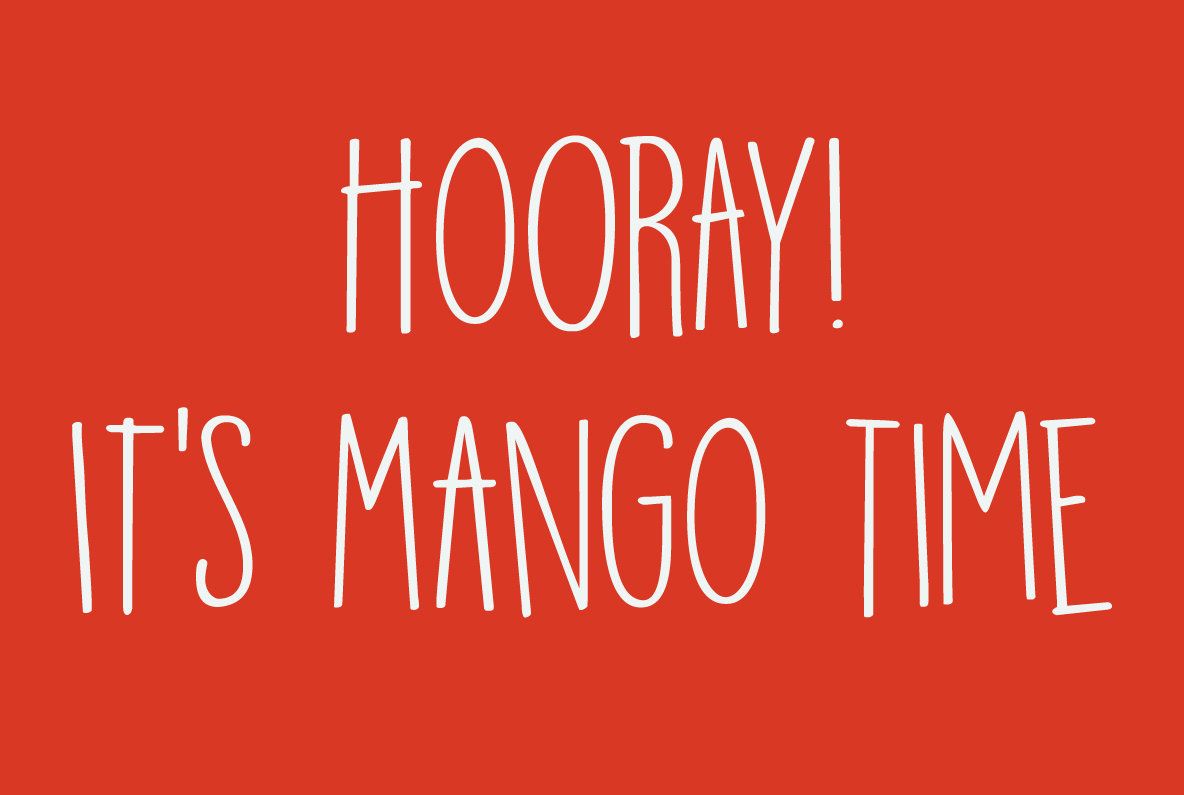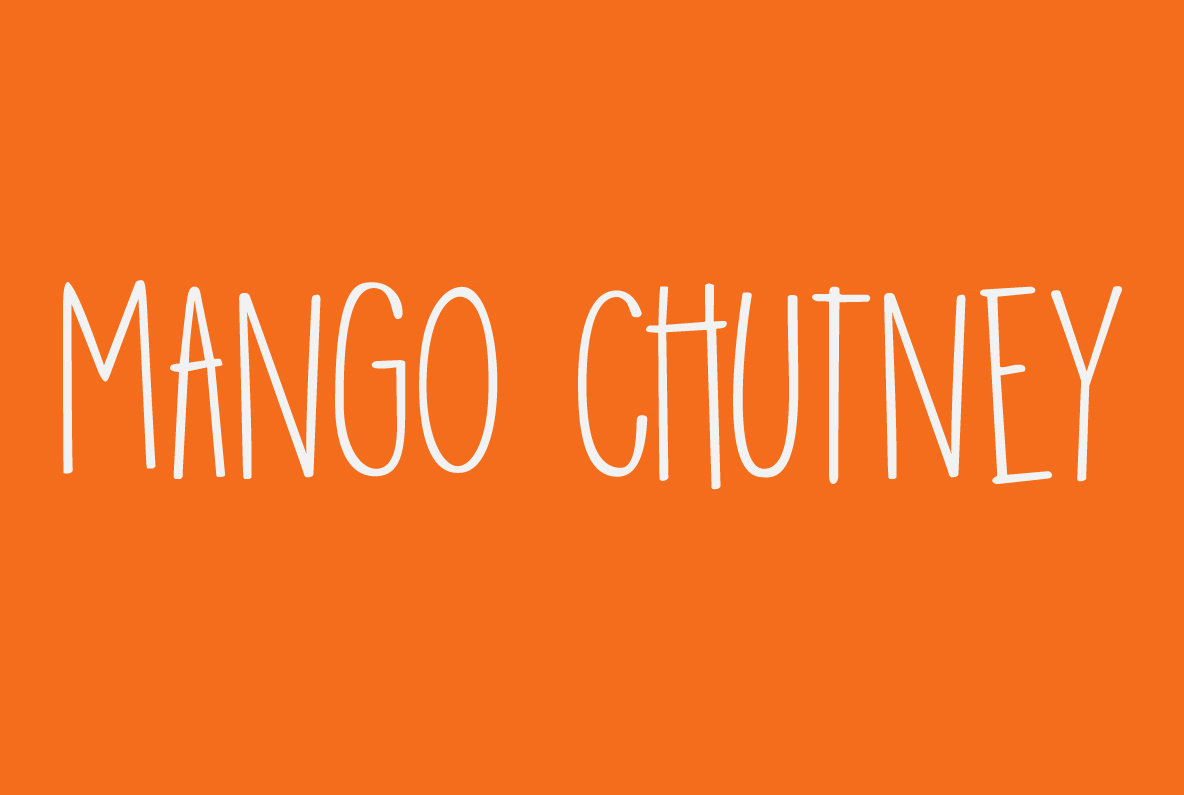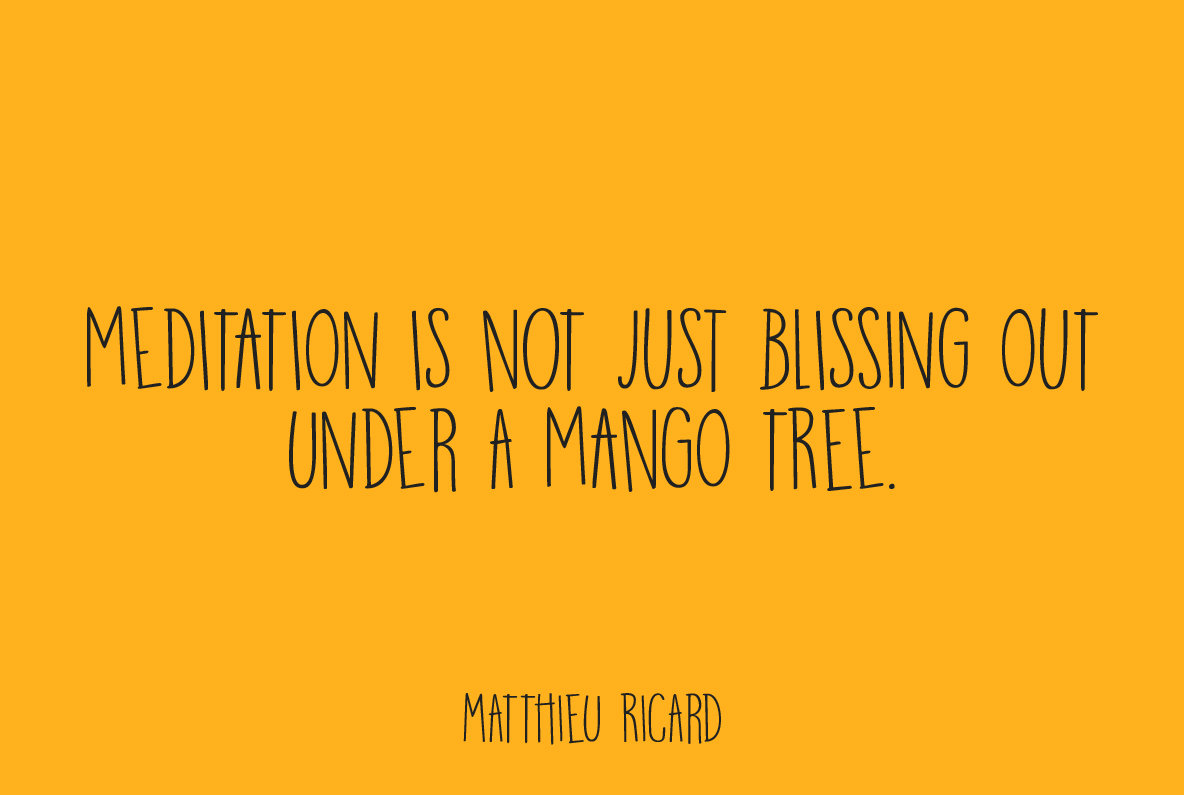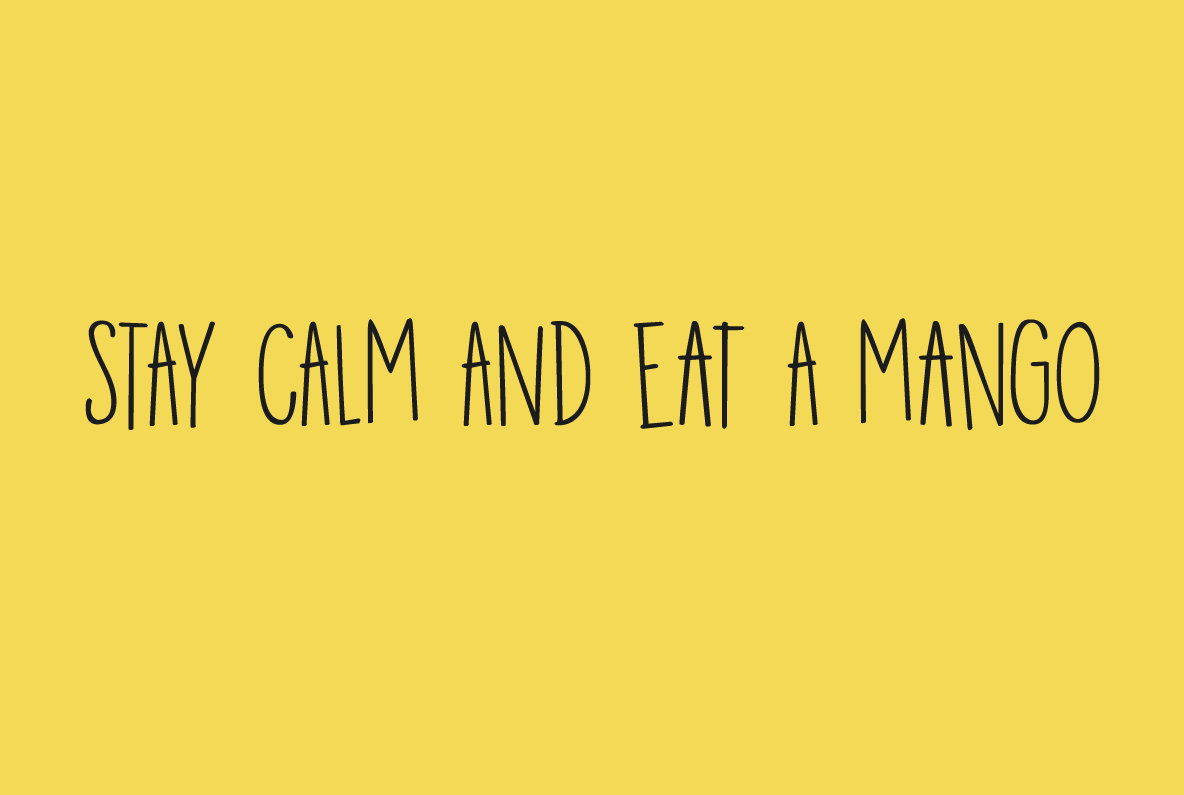
Mango Smoothie Font
Mango Smoothie
Summer's almost here, so it's time for some mango smoothies! Mango Smoothie is a tall, all caps, hand drawn font. A little shaky, a little uneven, but with a big taste and some creamy glyphs. Comes with multi-language support.